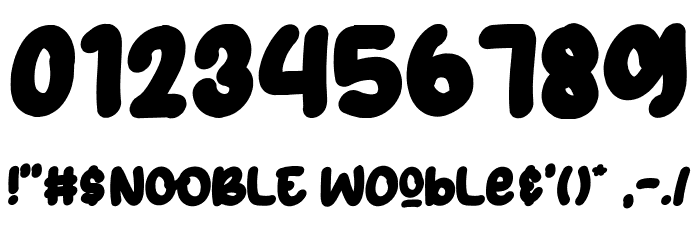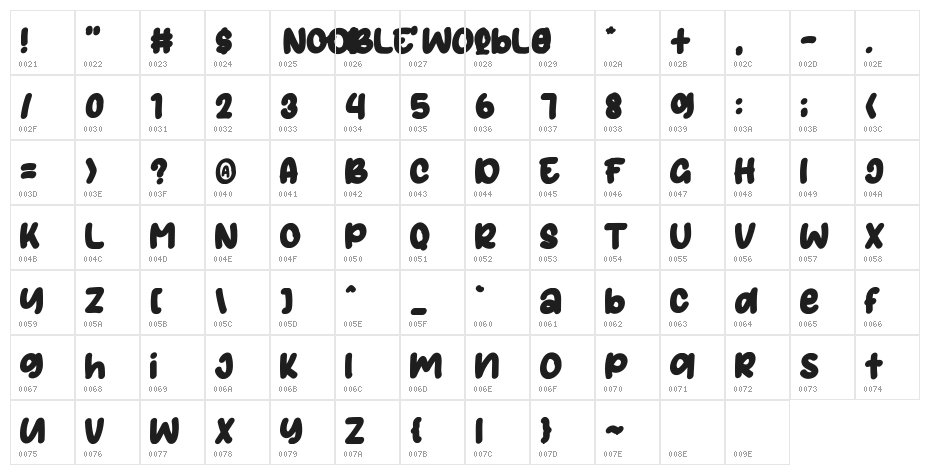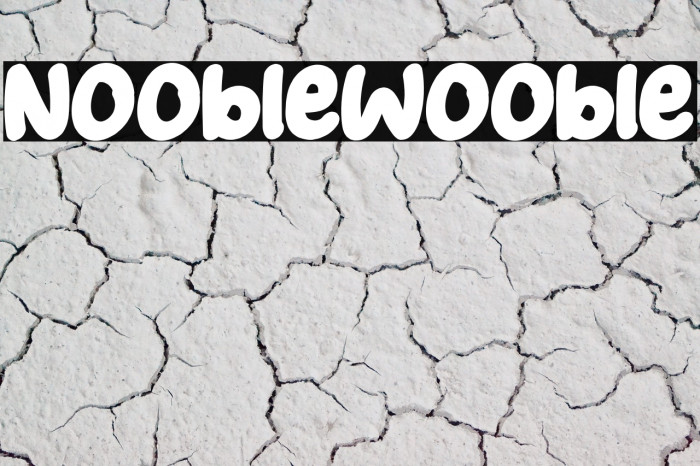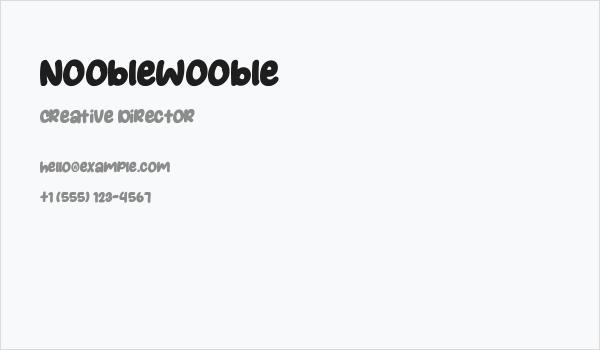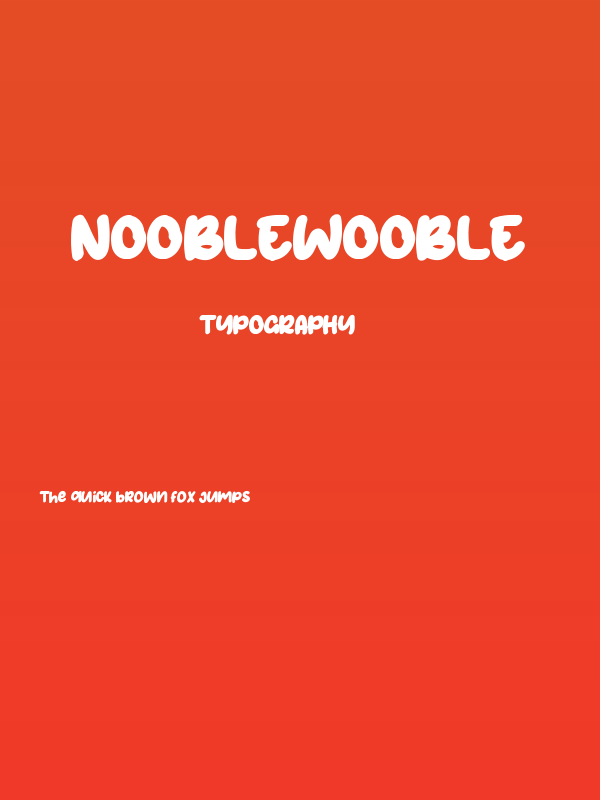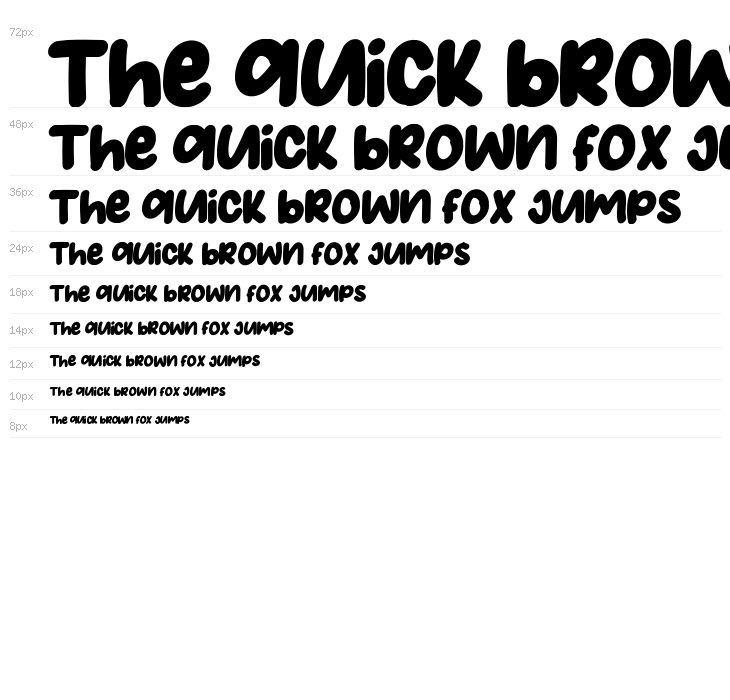
NoobleWooble Font
NoobleWooble Description
This playful and bold font features a bubbly, rounded style with thick strokes and smooth curves. The characters are designed with a whimsical flair, making them appear almost cartoonish. The uppercase and lowercase letters maintain a consistent weight, creating a cohesive look. Numbers and special characters follow the same playful design, ensuring uniformity across all glyphs. The font's unique style is eye-catching and memorable, perfect for projects that require a fun and informal touch. Its boldness ensures readability while the rounded edges soften the overall appearance.